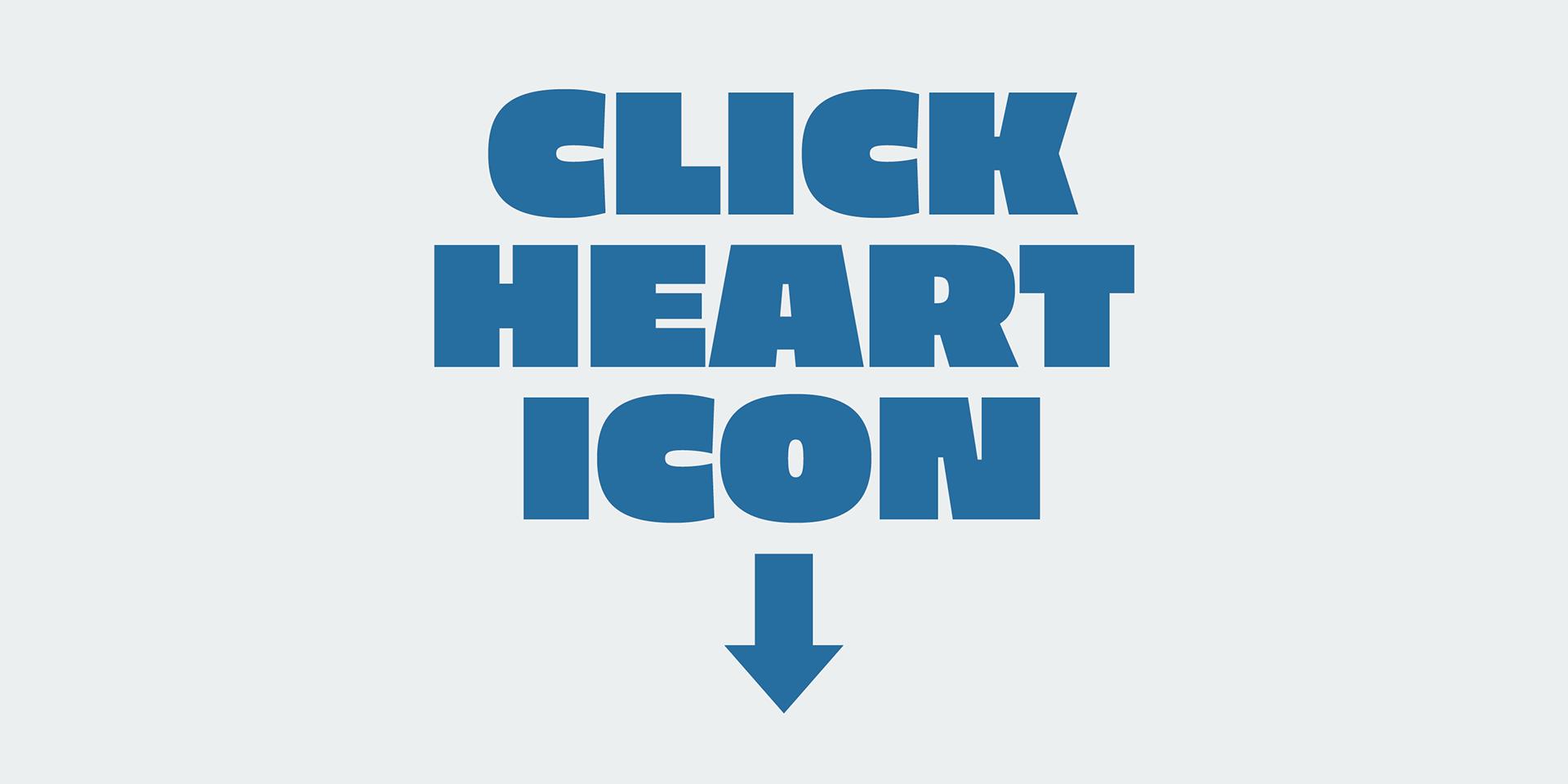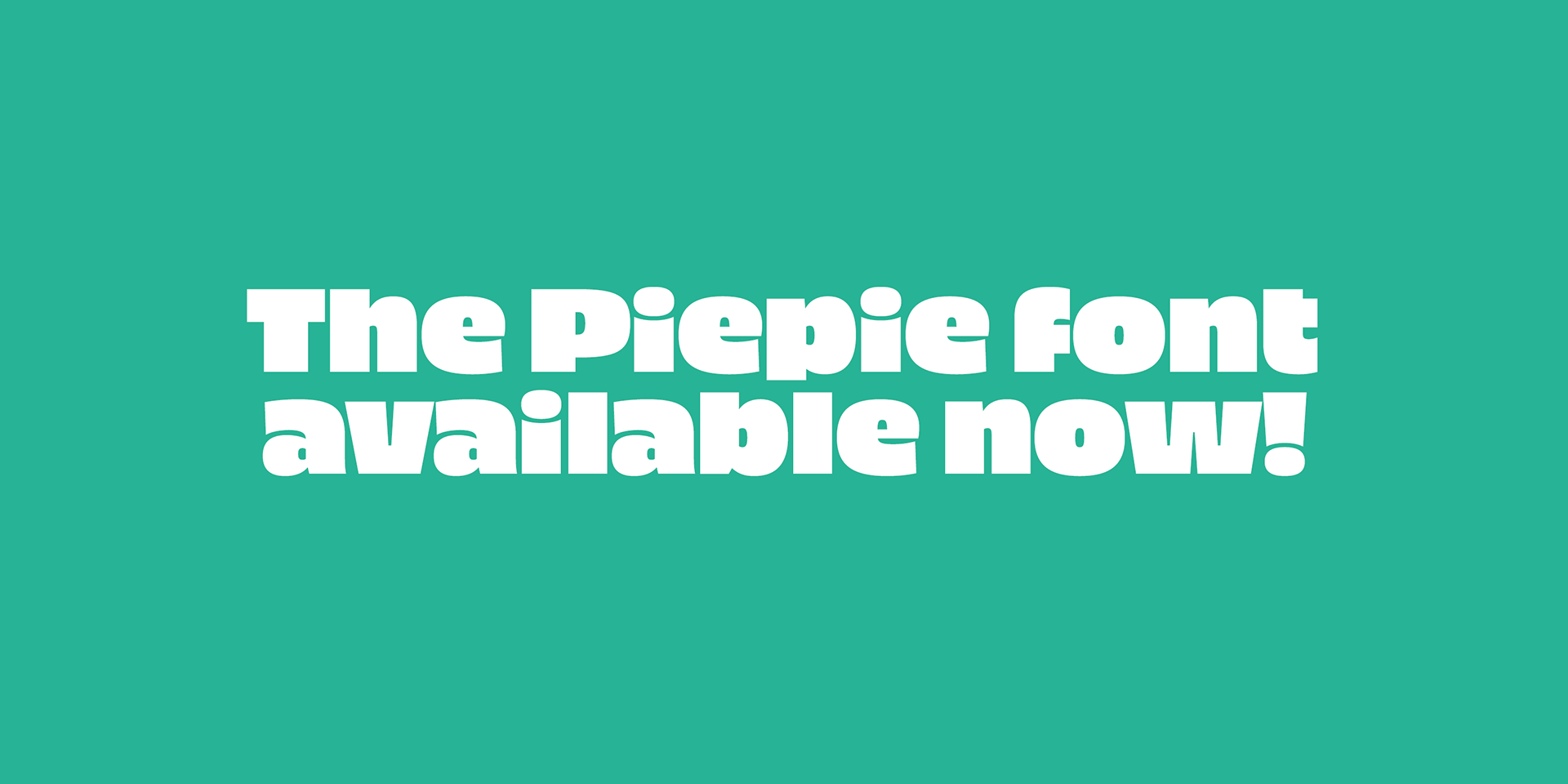
Piepie
Piepie is an ultra-heavy typeface designed specifically for titling and captions.
With its bold weight and strong presence, it’s perfect for making a powerful visual impact in headlines, posters, and display settings.
Super mini ascenders and descenders!
Ultra big x-height!
Fatty weight yet Sharpy sharp detail!
Bring it on Retina display!
OpenType alternates for K, R and Y!